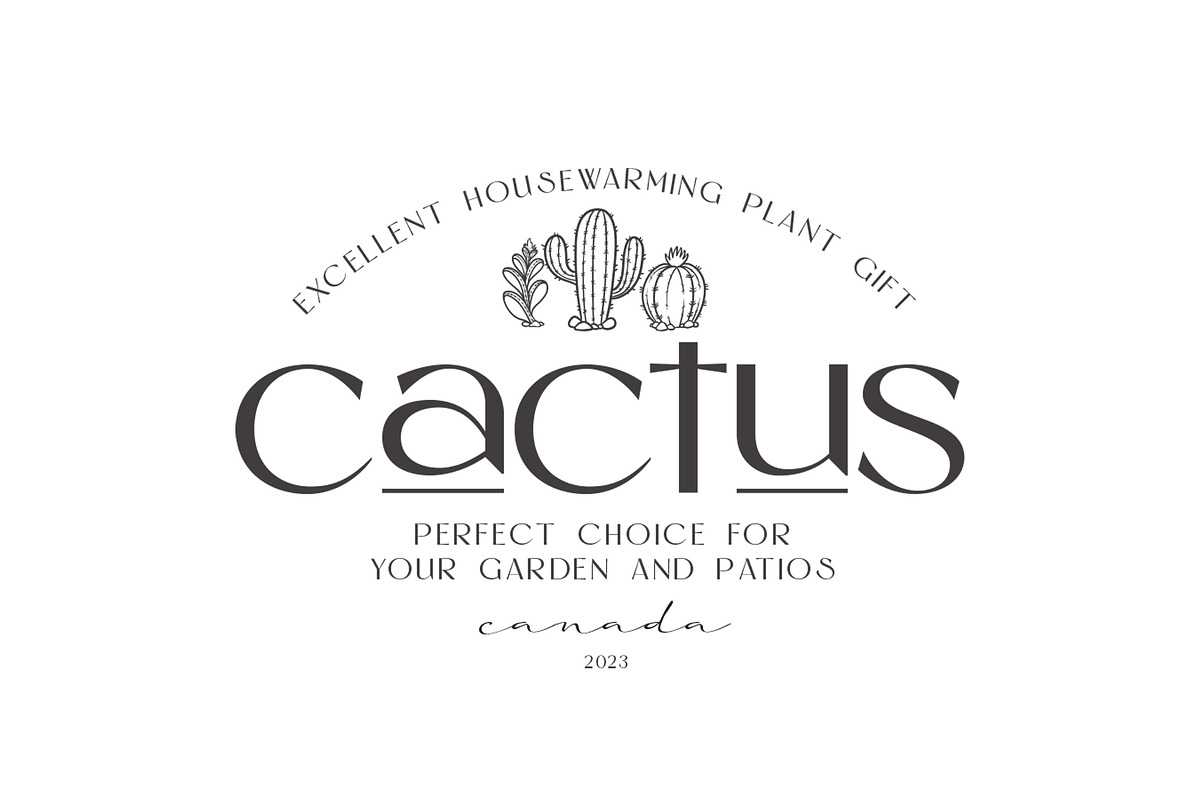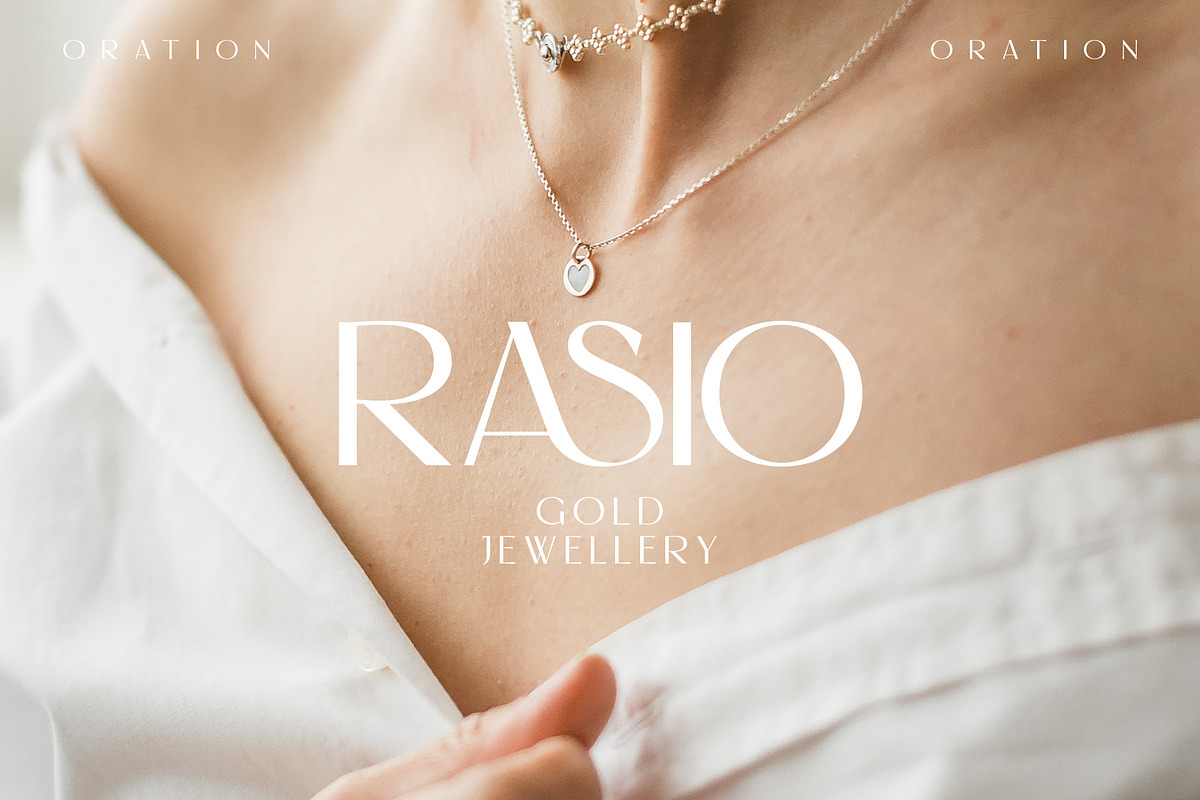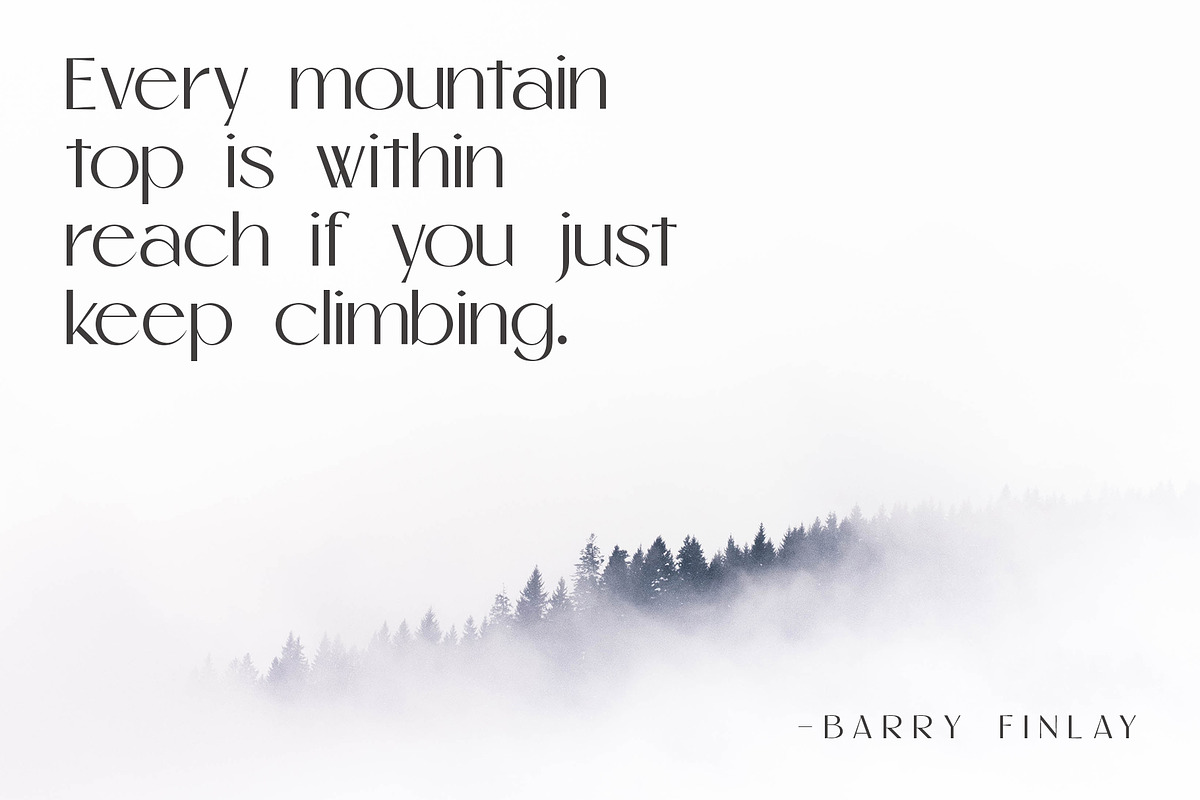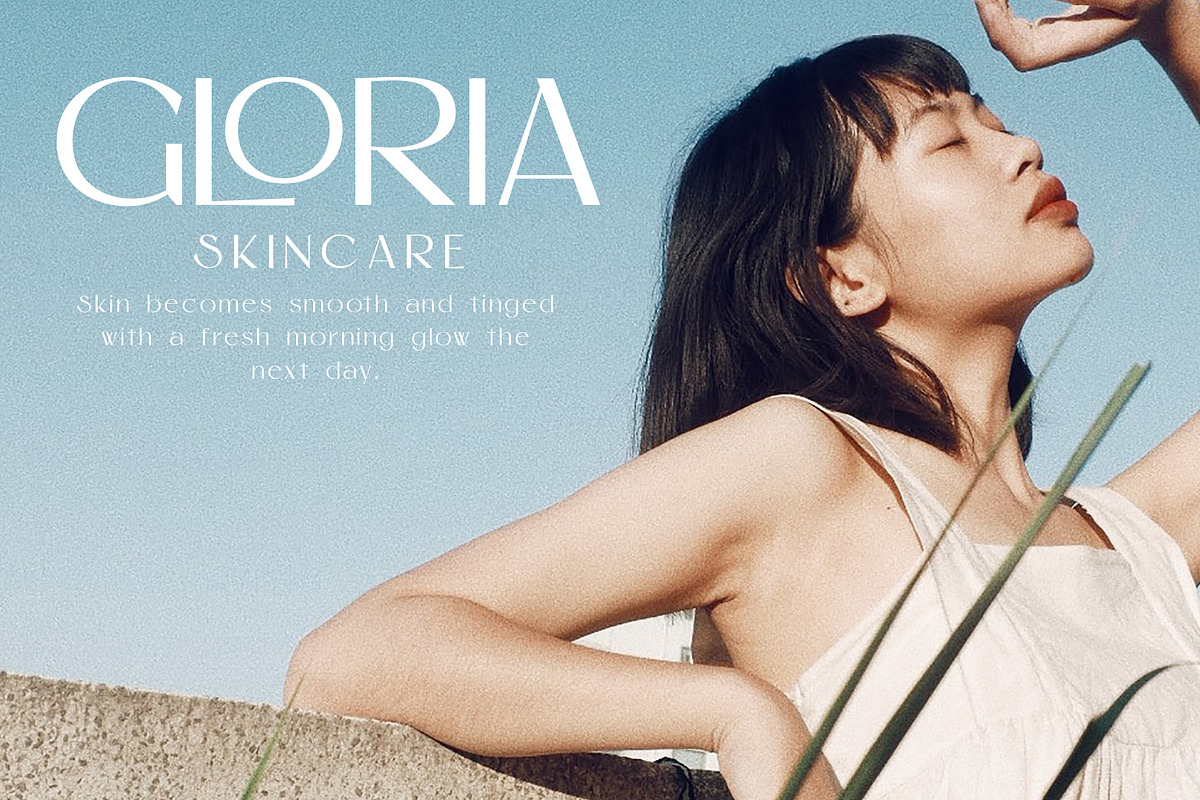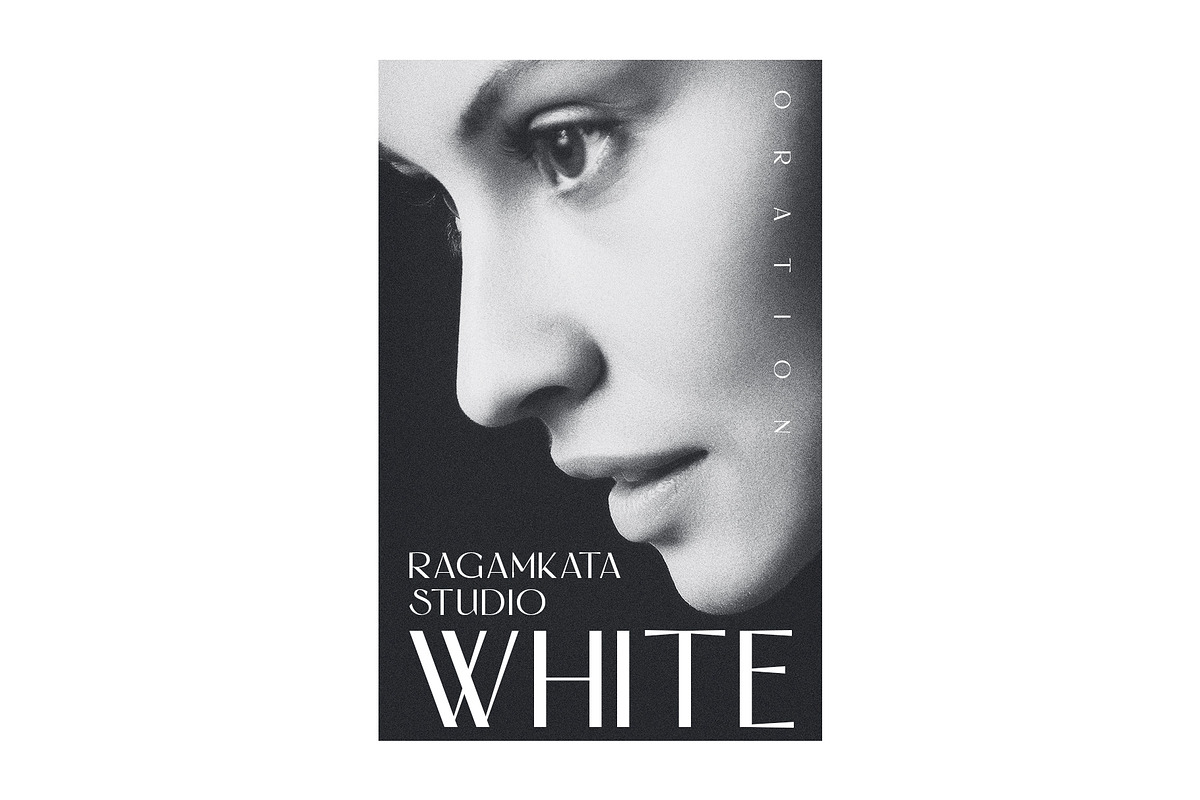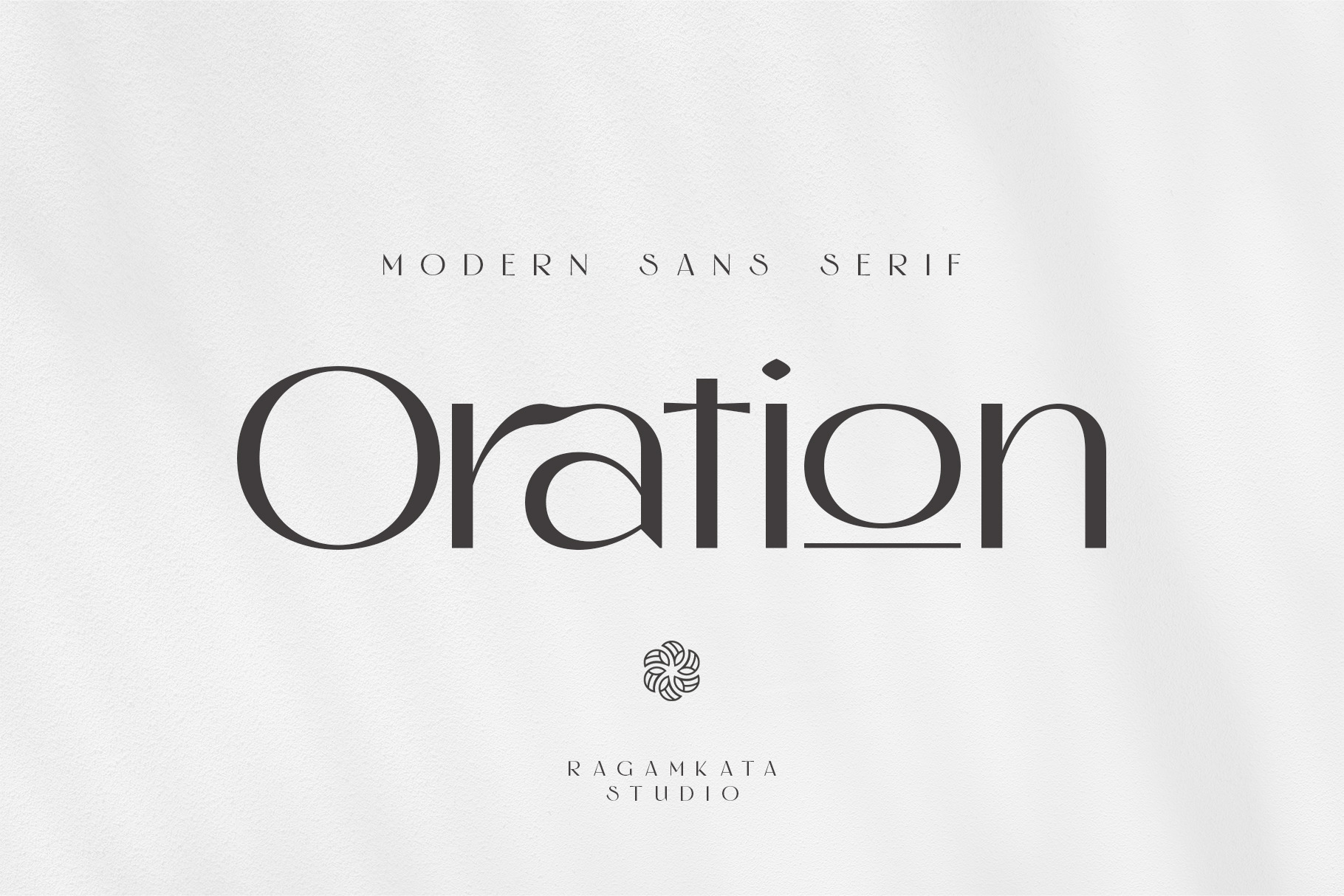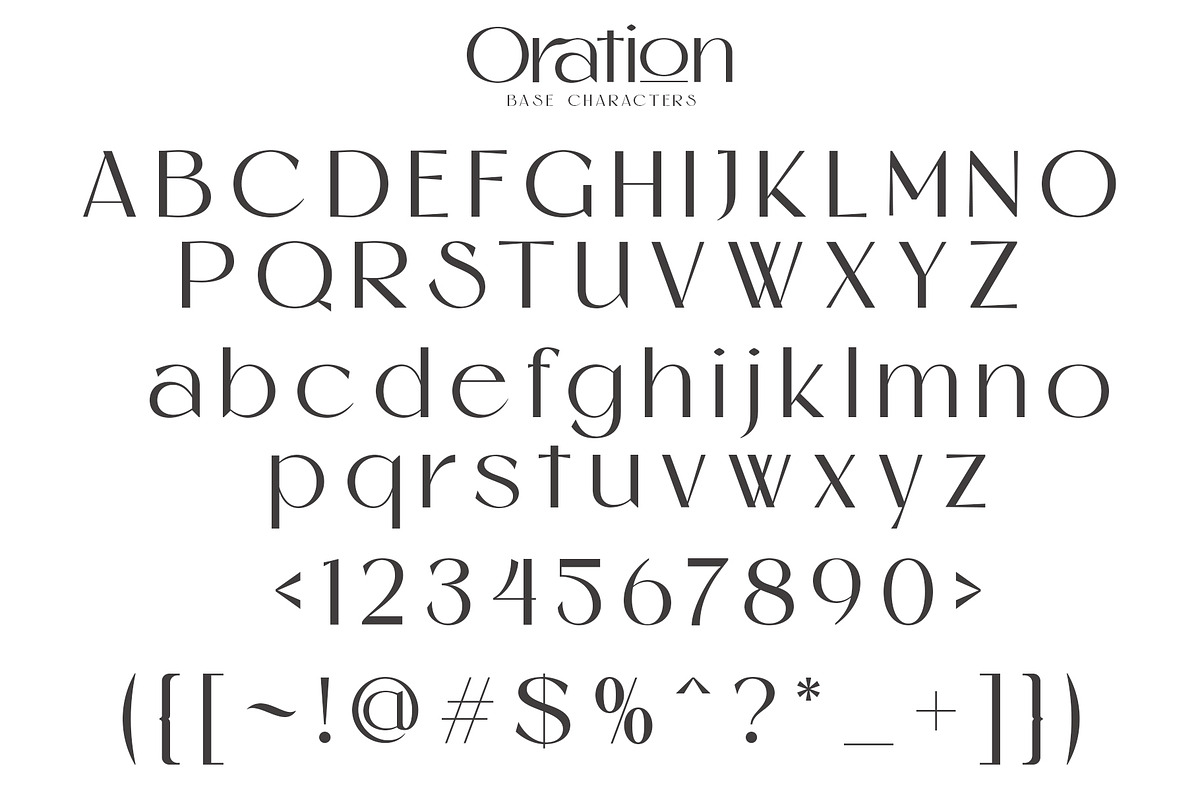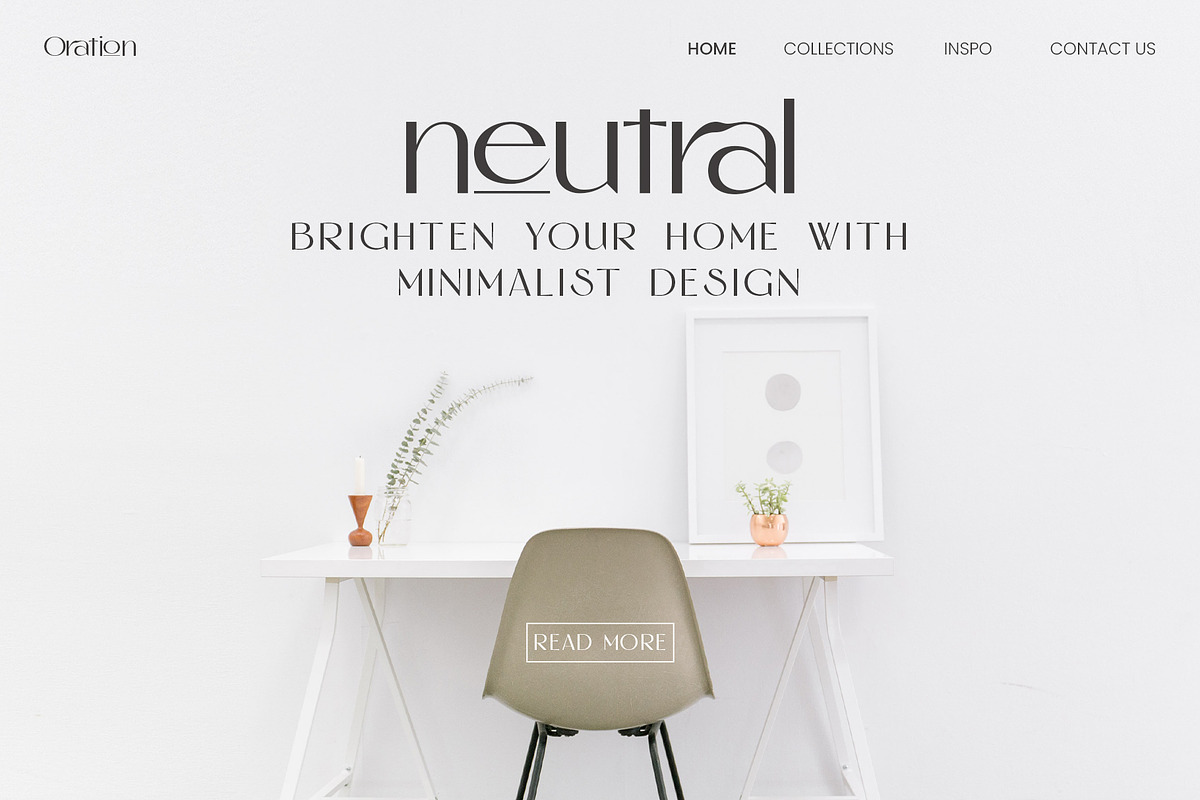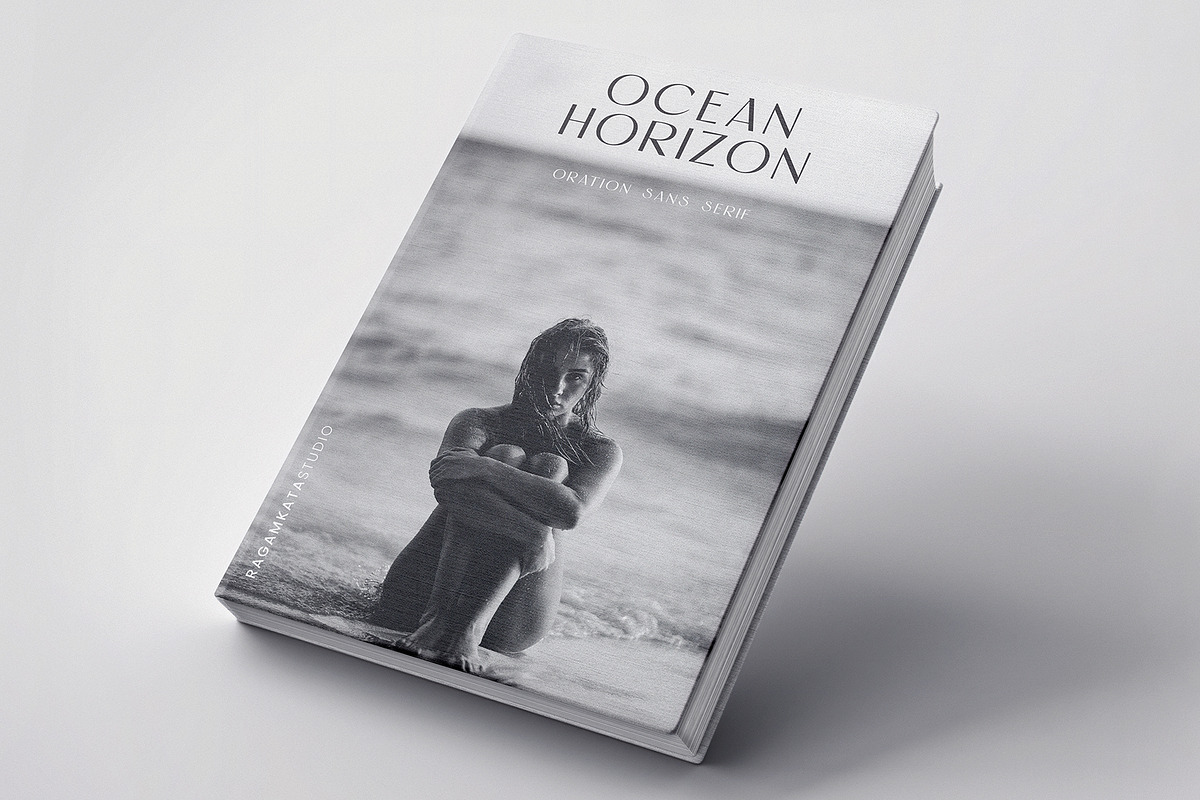
Oration - Beauty Product Typeface
Orient is a elegant and feminine sans serif with a touch of modern look and feel. This type of font perfectly made to be applied especially in logo, headline, signage and the other various formal forms such as invitations, labels, logos, magazines, books, greeting / wedding cards, packaging, fashion, make up, stationery, novels, labels or any type of advertising purpose.
- Full alternate by uppercase and lowercase
- Alternates and Ligatures
- Letters, numbers, symbols, and punctuation